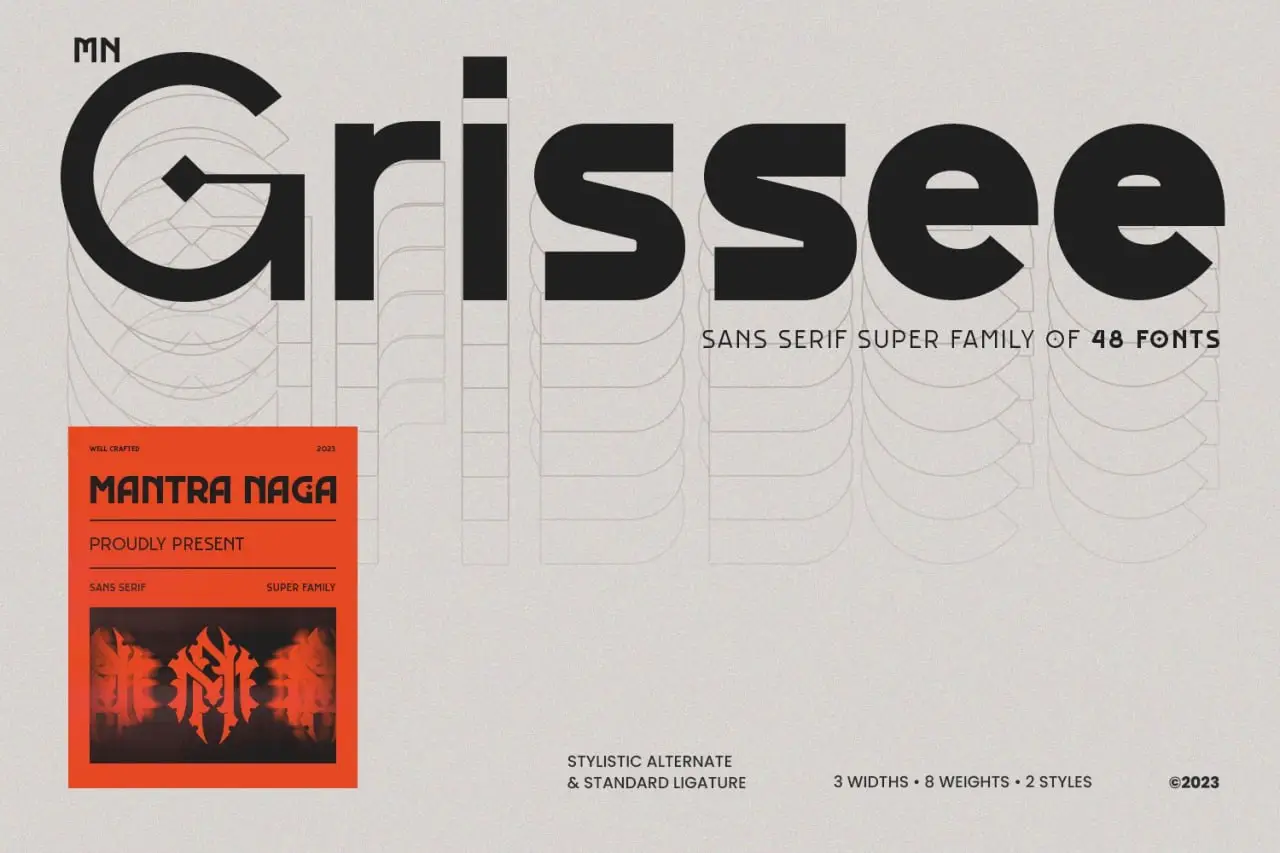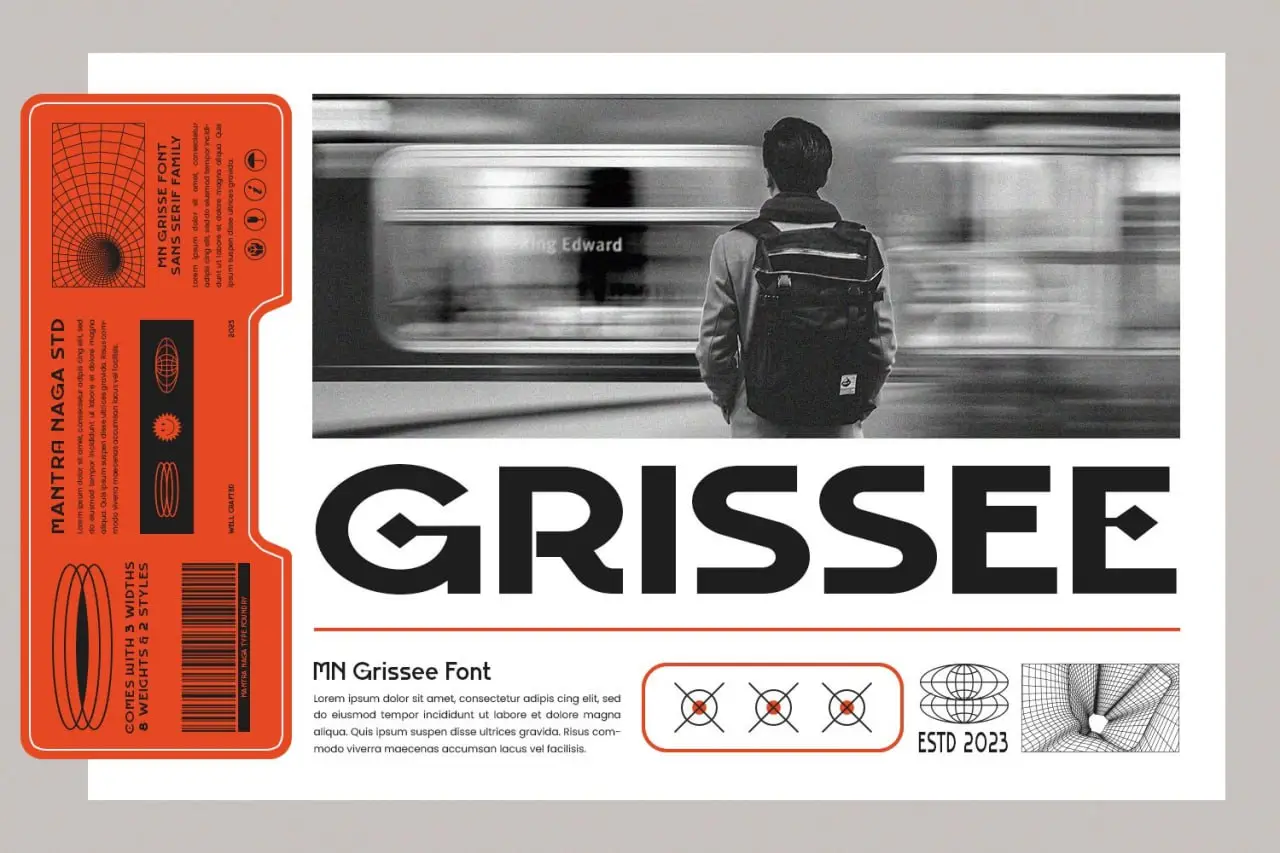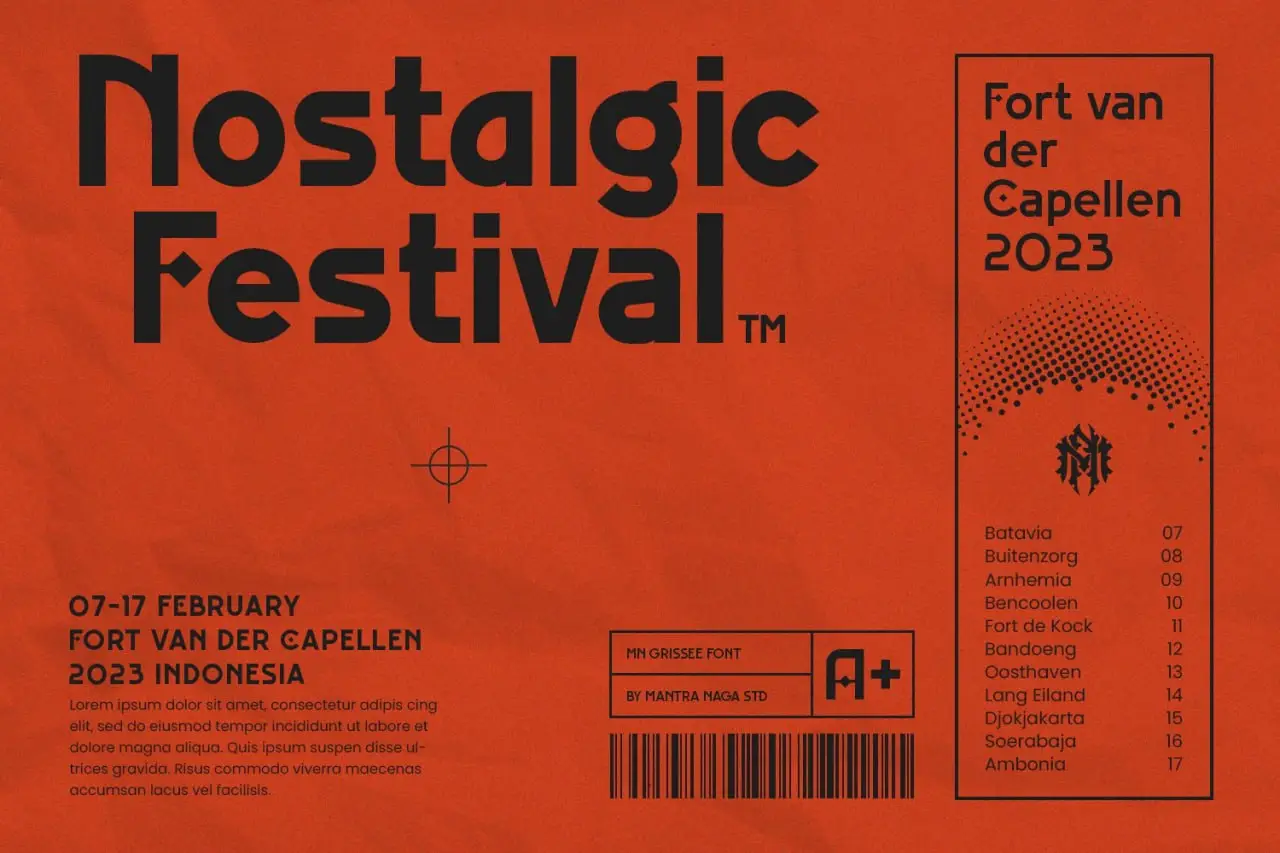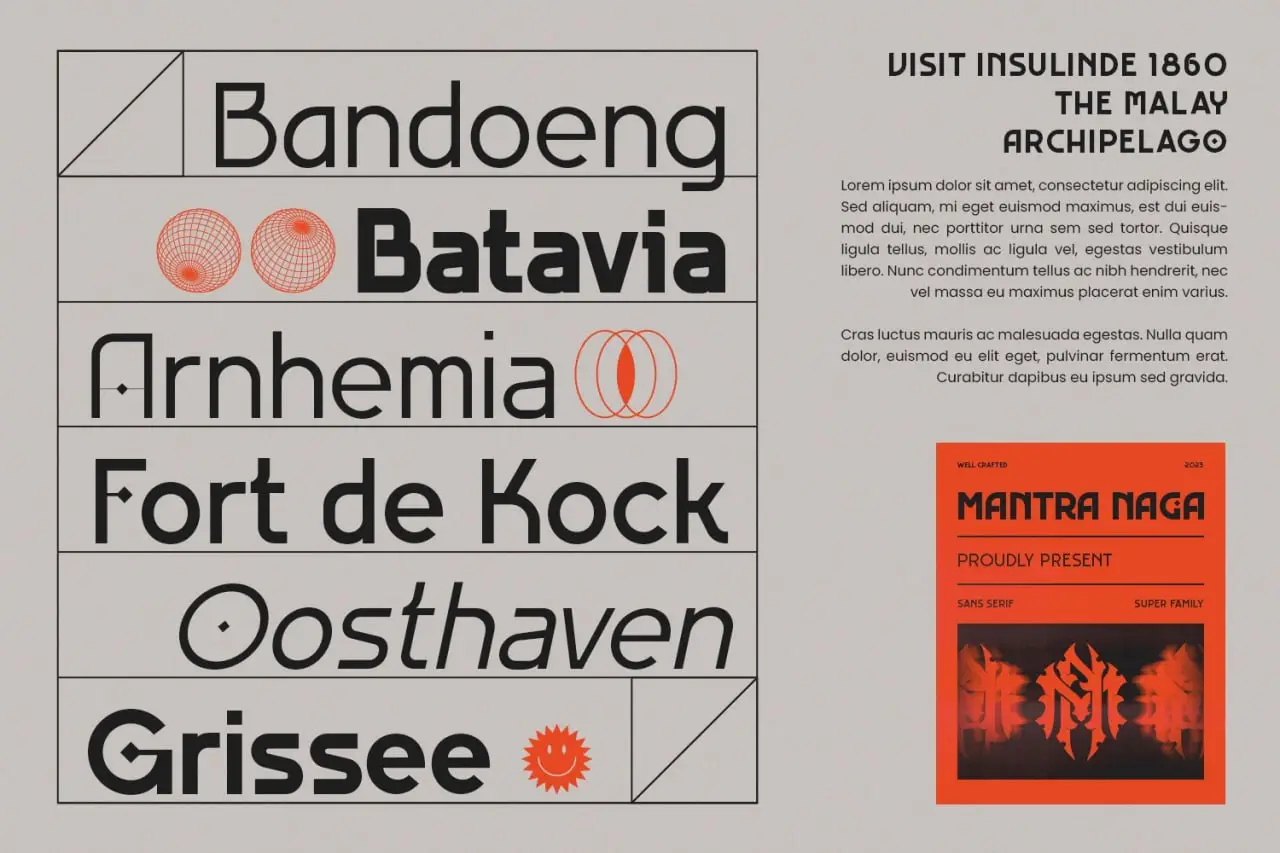
Mn Grissee Font By Mantranaga Studio
Introducing the Mn Grissee Font by Mantranaga Studio, a stunning typeface designed to elevate your creative projects. This font features a modern and elegant style, making it perfect for a variety of applications.
• Weights: Light, Regular, Bold
• Ideal for branding and logo design
• Great for web and print materials
• Perfect for UI design and digital applications